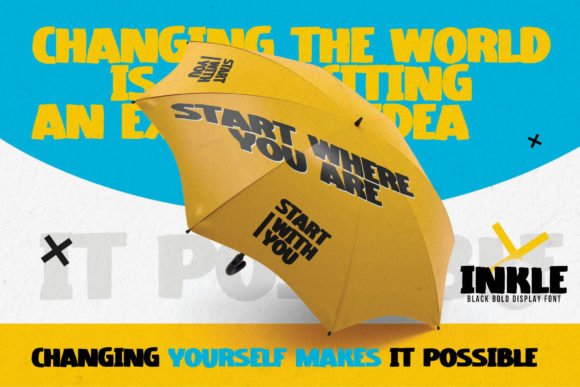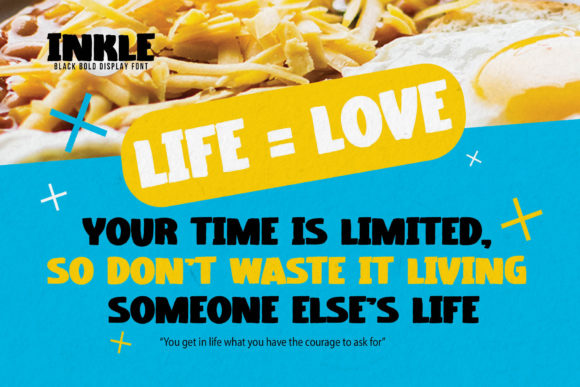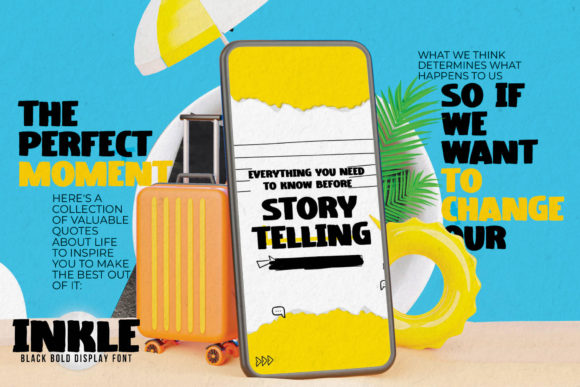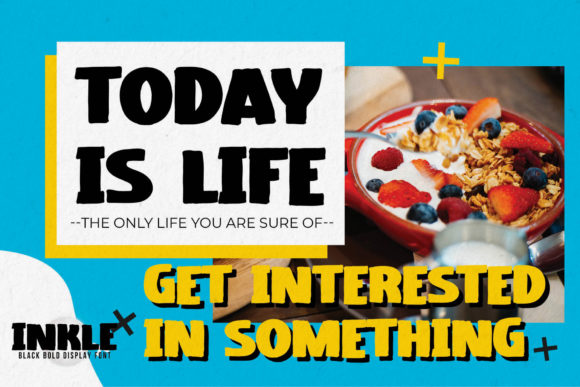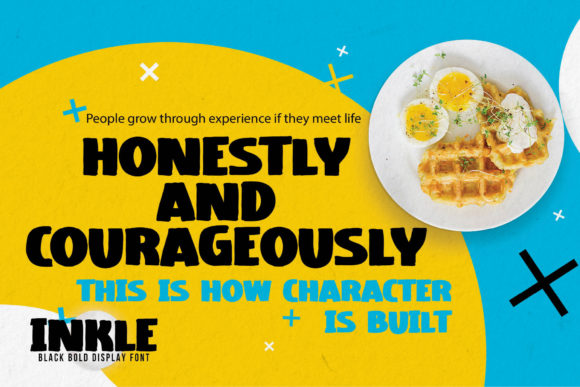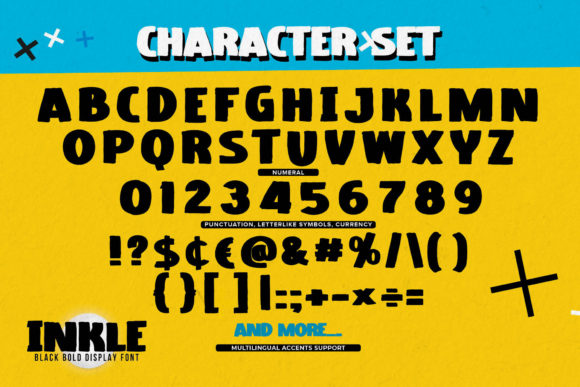
Introduction to Inkle Font
You’ve spent hours brainstorming the perfect design for your next creative project, and the final touch is just out of reach. The font, the colors, the layout – everything is almost perfect, but something’s missing. That’s where Inkle Font comes in, a strong lettered display font that’s sure to bring your design to life.
With its casual, cool vibe, Inkle Font is the perfect choice for designers looking to add a touch of personality to their work. Whether you’re creating logos, printed quotes, invitations, or product packaging, this versatile font is sure to impress. And the best part? It’s available for free download, making it an invaluable resource for any design project.
- Unique characteristic: Designed to be highly legible and versatile for a wide range of applications
Honest Review: Inkle Font
I recently stumbled upon the Inkle Font while working on a creative project that required a high-quality, unique font to give it a personal touch. The Inkle Font exceeded my expectations in several areas.
- Unique and elegant design that’s perfect for creative projects
- High quality and crisp typography, even at smaller font sizes
- Transparent background allows for easy customization and integration with various design elements
However, I did encounter a few limitations while working with the Inkle Font.
- Not as versatile as some other fonts, may not be suitable for all types of creative projects
- No extensive character set, may not be ideal for projects requiring complex typography
Overall, I’m impressed with the Inkle Font’s unique design and high-quality typography. While it may have some limitations, it’s a great addition to any designer’s arsenal, especially for those working on creative projects that require a touch of elegance.
Inkle Font is commonly used for:
- Presentation slides
- Logos and branding